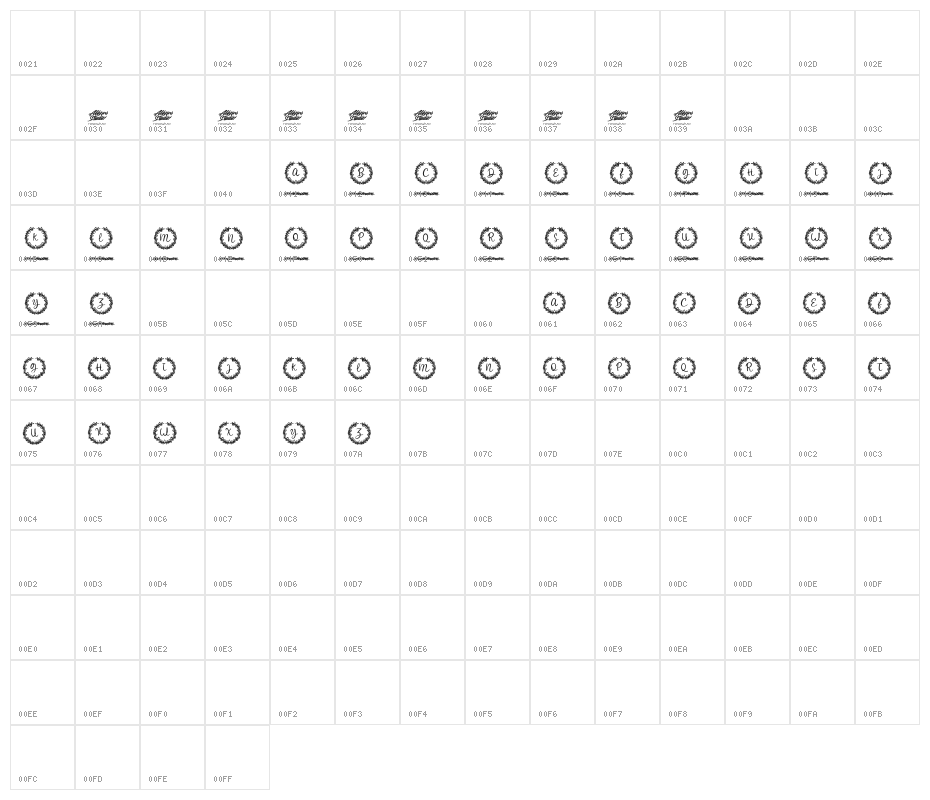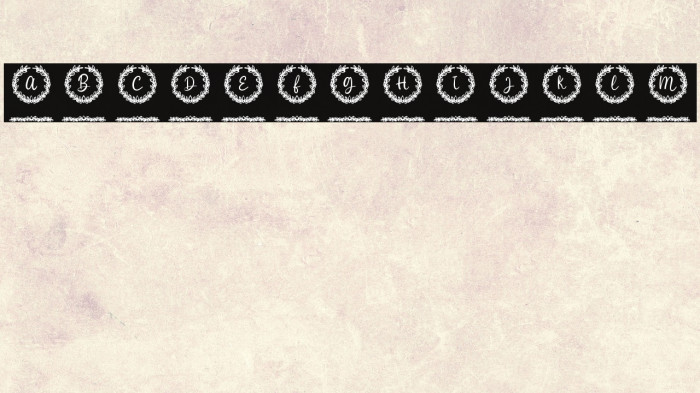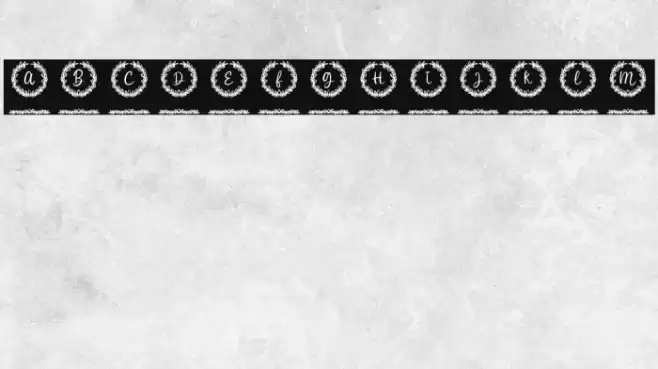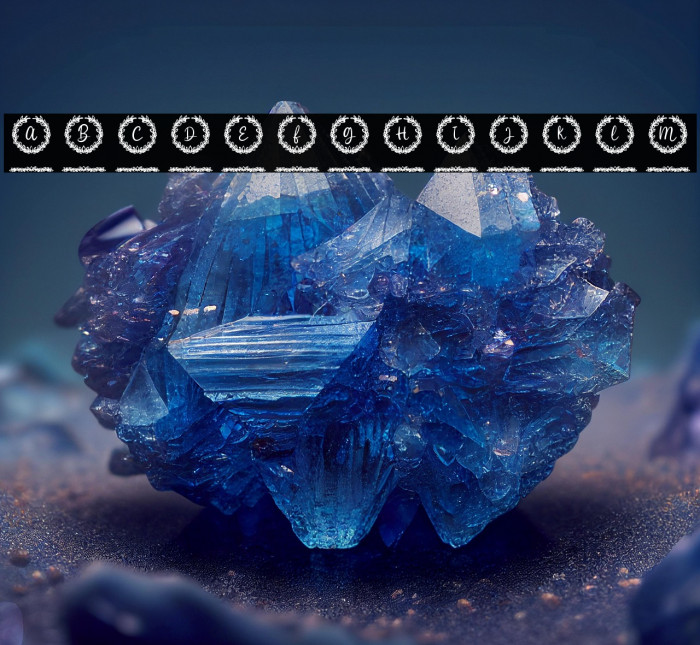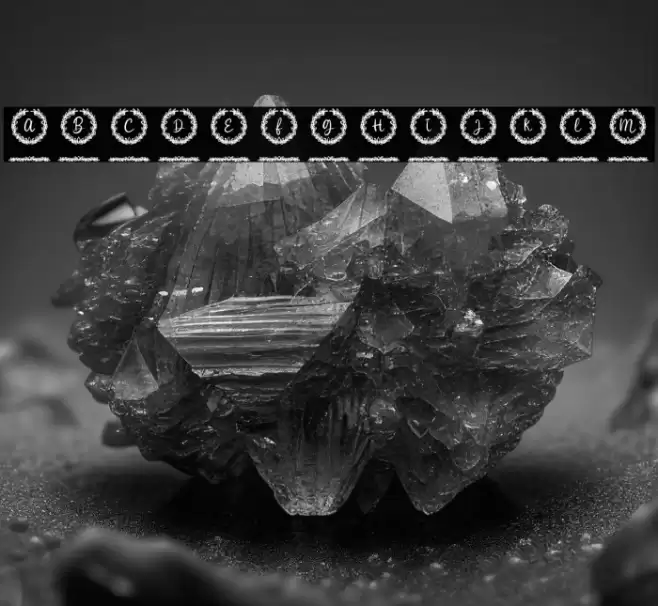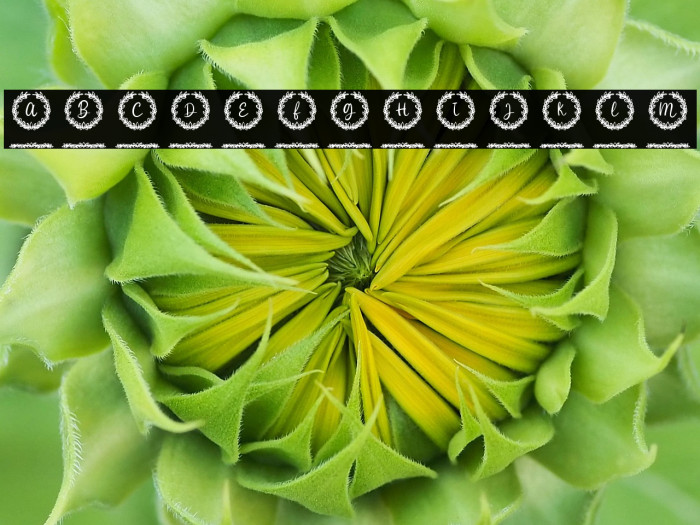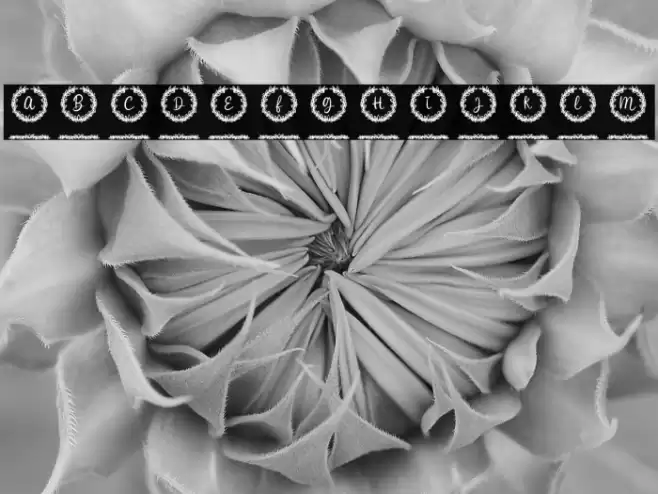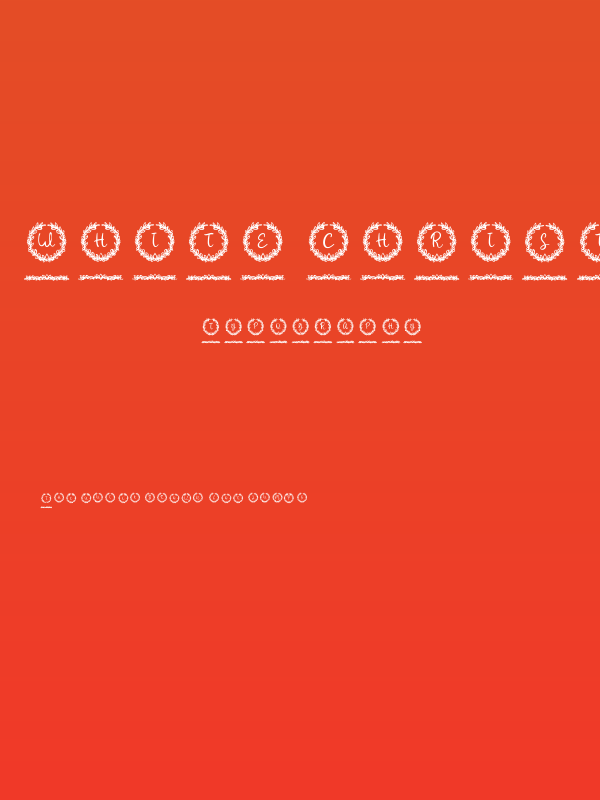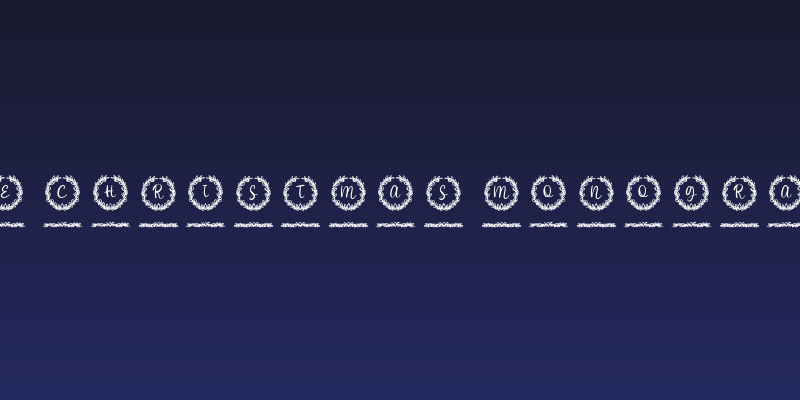
White Christmas Monogram Reg Font
White Christmas Monogram Reg Description
This font features a decorative style where each letter is encased within a circular wreath, giving it a festive and elegant appearance. The letters themselves are script-like, with a smooth and flowing design that adds a touch of sophistication. The wreaths are detailed with intricate leaf patterns, enhancing the overall decorative feel. This font is perfect for holiday-themed projects, invitations, or any design that requires a touch of elegance and festivity. The combination of the script letters and the ornate wreaths creates a unique and eye-catching look.
| Use Case | Logos, Invitations, Decorative prints |
| Proposed Projects | Ideal for holiday cards, invitations, festive branding, and decorative prints. |